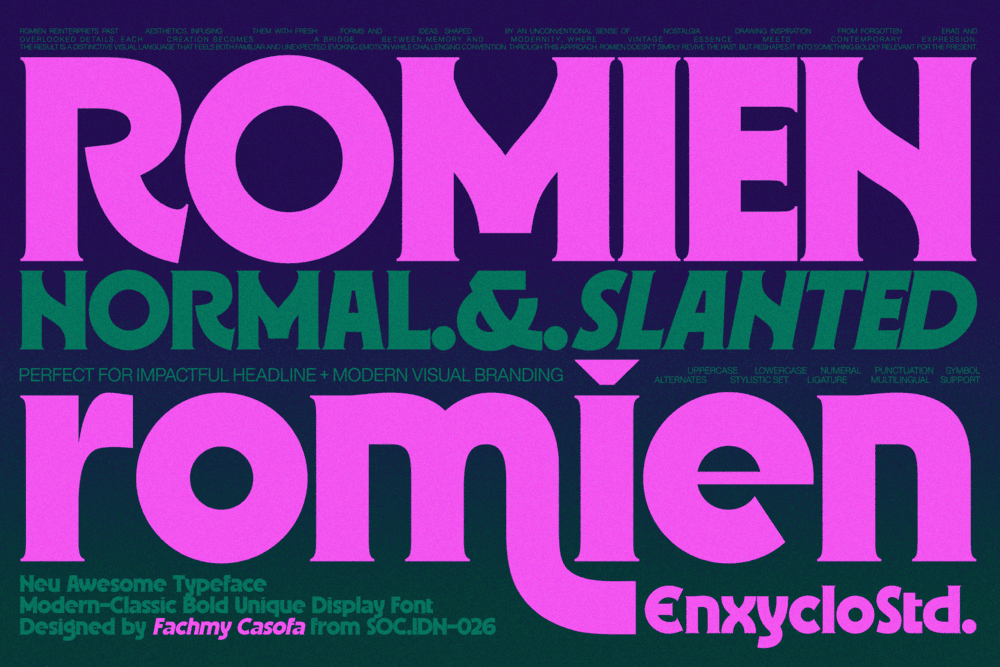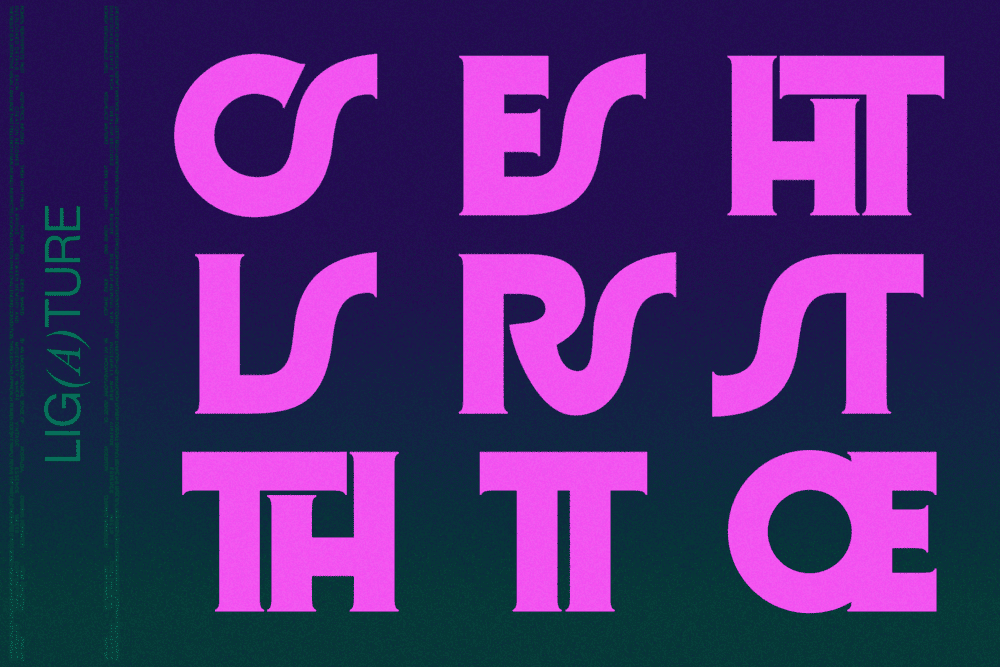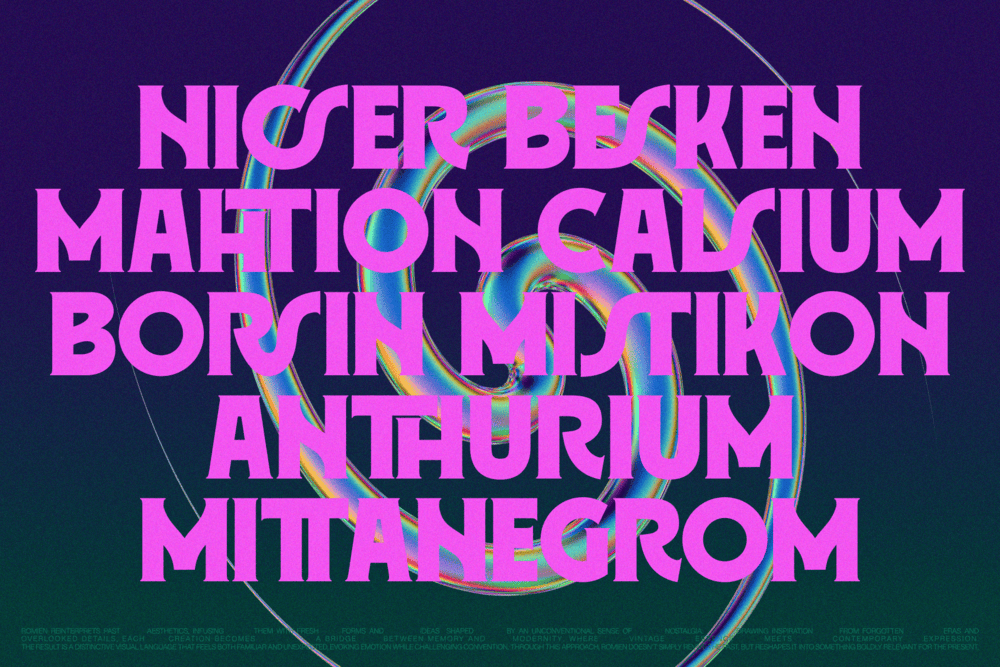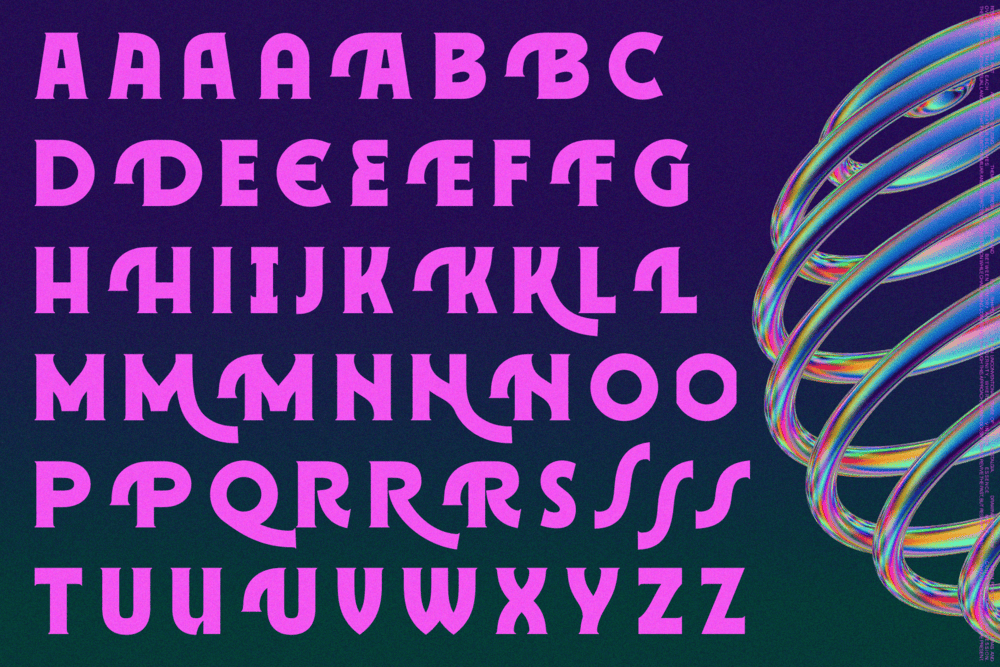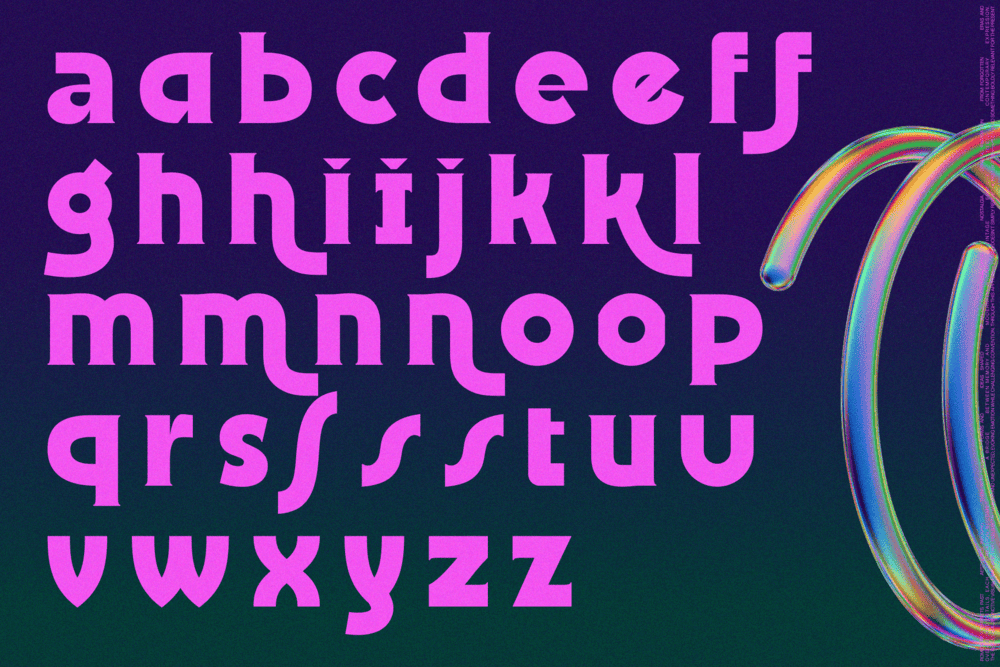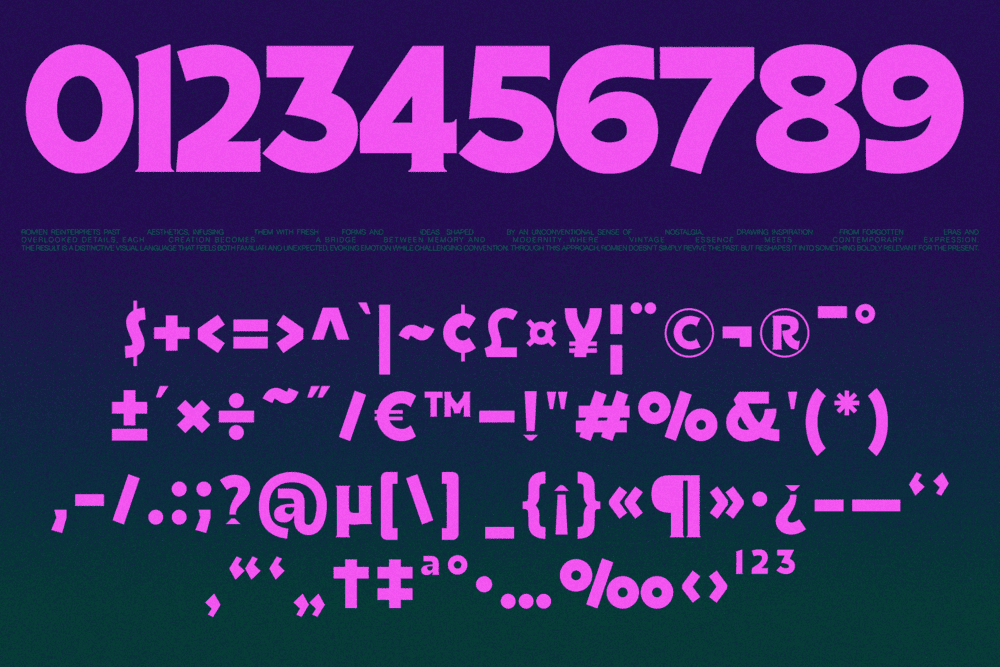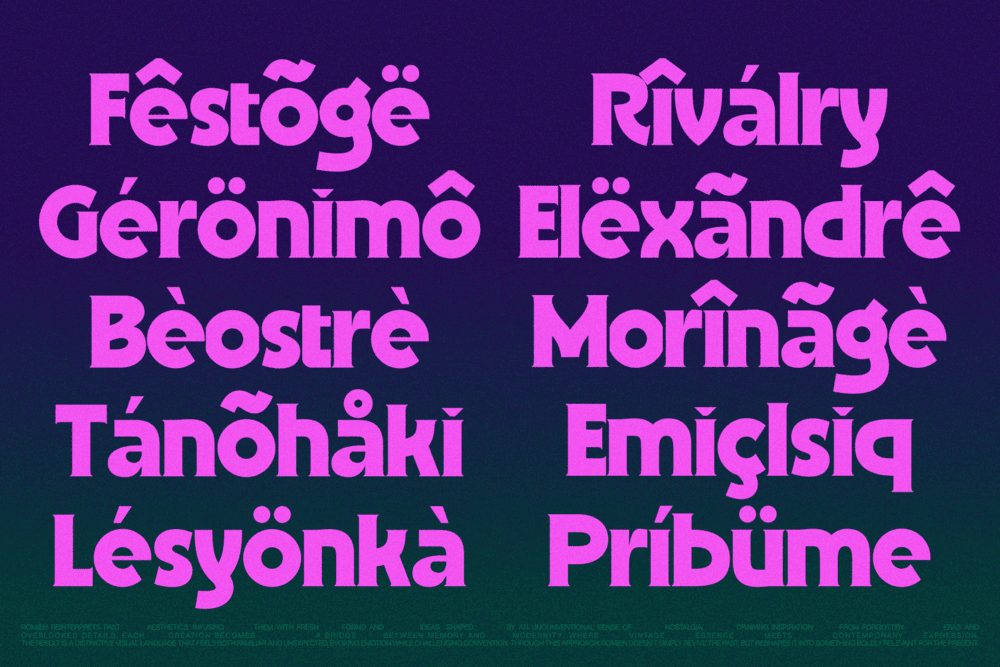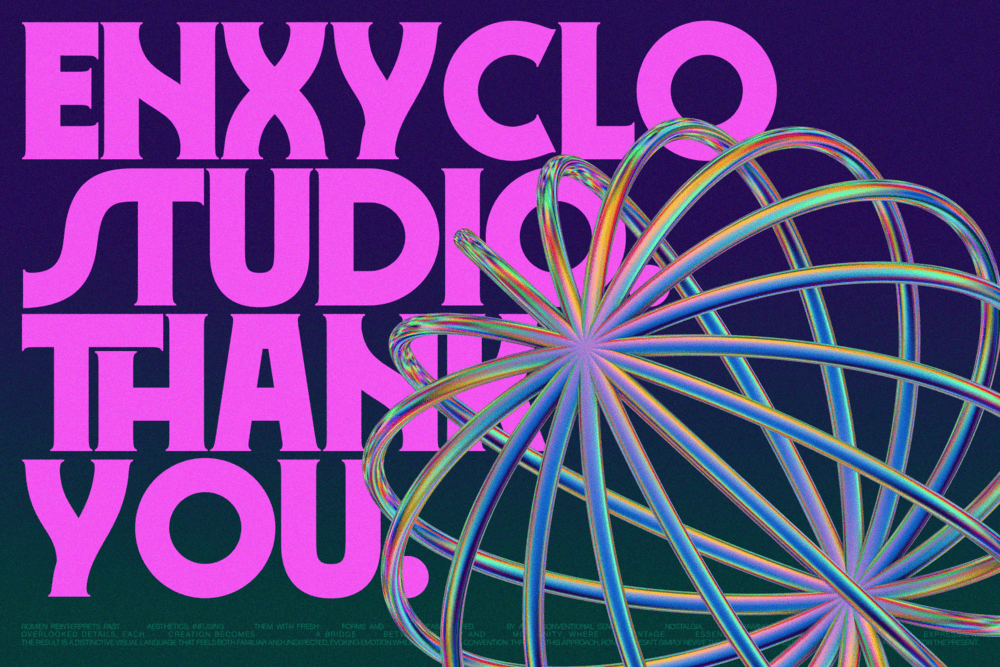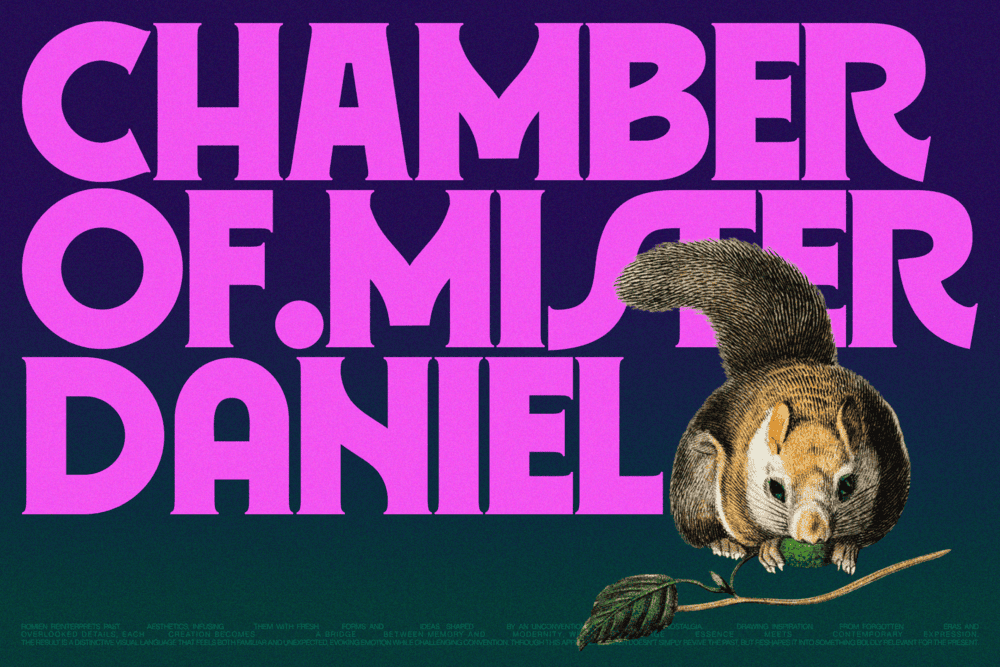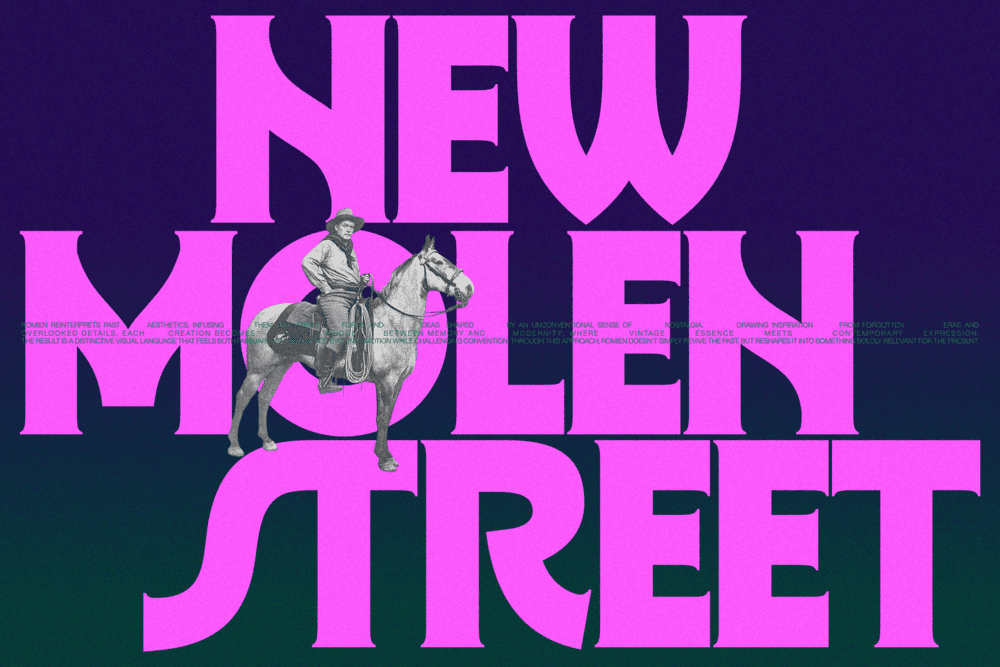
ROMIEN is a modern-classic display font that reinterprets past aesthetics through a bold contemporary lens. Rooted in an unconventional sense of nostalgia, it transforms vintage inspiration into fresh, expressive forms, creating a visual language that feels both familiar and strikingly new.
Drawing from forgotten eras and overlooked details, ROMIEN bridges memory and modernity. Its letterforms carry subtle echoes of classic design while embracing clean, contemporary structure. The result is a distinctive typeface that blends vintage essence with modern expression, delivering a look that is elegant, character-rich, and visually compelling.
Designed to evoke emotion while challenging convention, ROMIEN doesn’t simply revive the past, it reshapes it. Each character feels intentional, balancing timeless charm with bold creative direction, making it perfect for designers who want their work to stand out with depth and story.
Whether used for impactful headlines, branding, or artistic compositions, ROMIEN brings a refined yet experimental edge, turning every design into a statement that feels nostalgic, modern, and undeniably unique.
FEATURE
• Uppercase & Lowercase Letters
• Two Version: Normal & Slanted
• Punctuation Marks, Currencies & Symbol Set
• Alternate, Stylistic Set & Ligature
PERFECT FOR
• Display Headlines
• Modern & Vintage Branding
• Editorial & Magazine Design
• Poster & Cover Design
• Creative Agency Projects
• Artistic Visual Identity
• Fashion & Lifestyle Branding